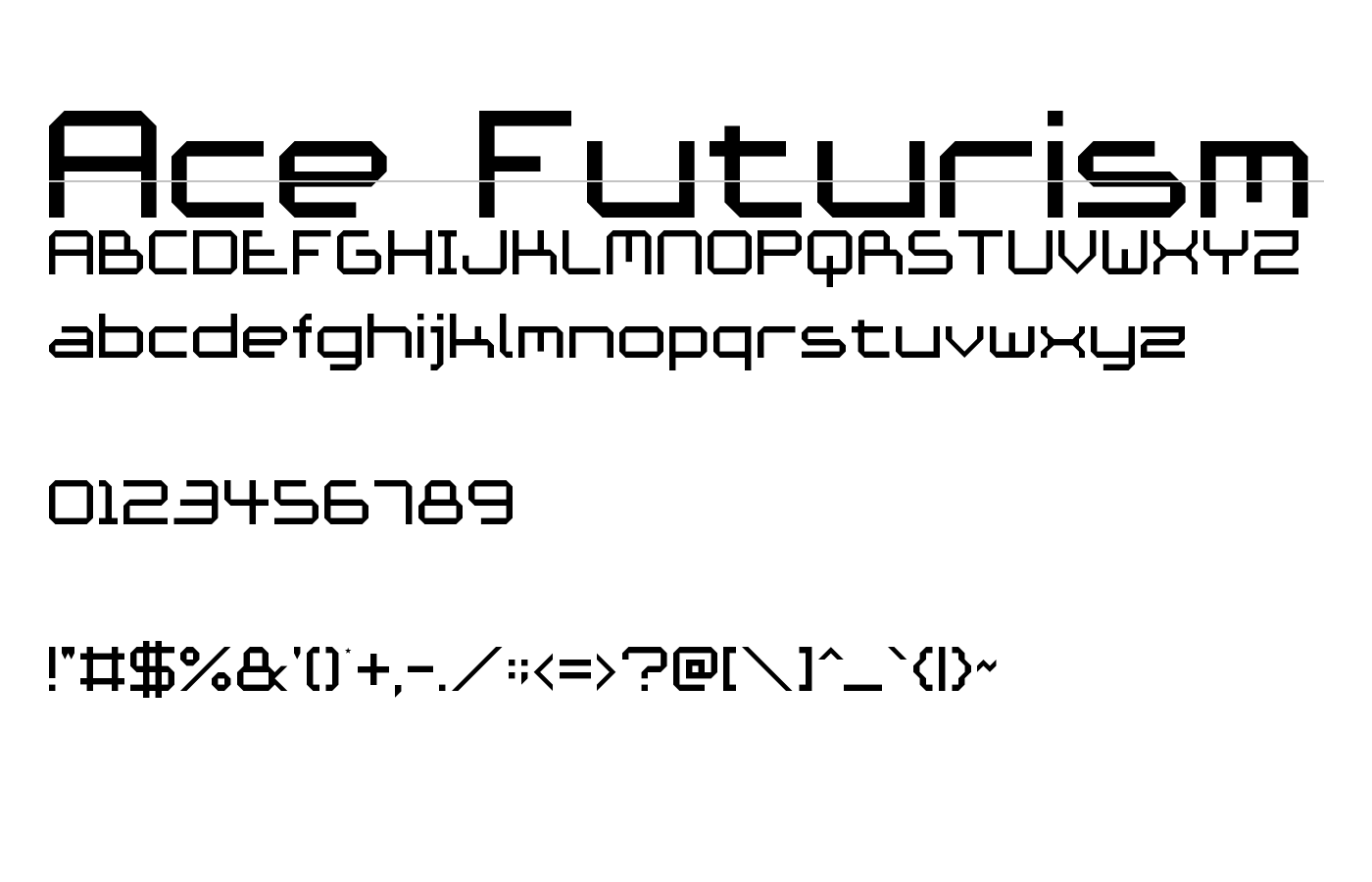
Ace Futurism is a sleek, geometric sans serif font with a technical and modern edge, characterized by its uniform stroke weight and distinctive angular shapes. Its clean, minimal letterforms and balanced spacing give it a futuristic, digital feel ideal for tech branding, digital interfaces, and contemporary design projects seeking a forward-looking aesthetic. This font works best in headlines or logos where its unique style can stand out and convey innovation and precision.
Ace Futurism Font
About Ace Futurism Font
| Font family | Ace Futurism Font |
| Designer | NAL |